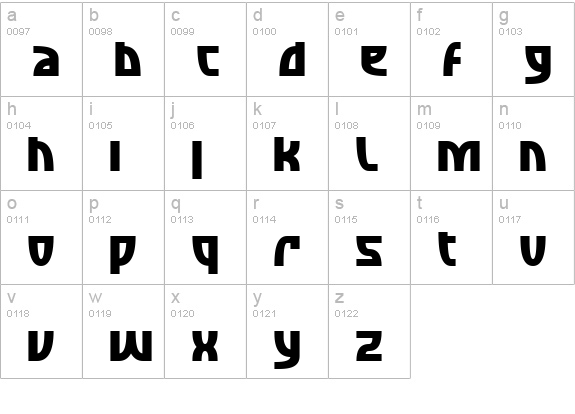
SF Retroesque Bold Font Details
SF Retroesque Bold is a strong, high-contrast variant in the SF typeface family \xE2\x80\x94 well suited to headlines, attention-grabbing titles, and strong calls-to-action.
SF Retroesque Bold is a stunning font that effortlessly combines the classic aesthetics of retro typography with a modern twist. This typeface exudes a sense of nostalgia and elegance, making it perfect for any design project that calls for a touch of vintage charm. With its bold and strong letterforms, SF Retroesque Bold commands attention and adds a sense of authority to any text it graces. Whether used for headlines, logos, posters, or branding materials, this font captivates the viewer's eye and leaves a lasting impression. What makes SF Retroesque Bold even more enticing is that it is freely available to download at FontsMarket.com. This means that designers, creatives, and enthusiasts alike can easily access and incorporate this font into their projects, without any financial barrier. Its availability for free ensures that it can be enjoyed by a wide range of individuals, regardless of their budget or resources. The versatility of SF Retroesque Bold knows no bounds. Its clean and legible design makes it suitable for both print and digital media. It effortlessly adapts to various sizes and contexts, maintaining its visual impact across different platforms. The attention to detail in SF Retroesque Bold is truly remarkable. Each character is meticulously crafted, paying homage to the elegant typography of the past while embracing the contemporary design trends. The result is a harmonious blend of old and new, creating a font that stands out from the crowd. Whether you're designing a vintage-inspired website, crafting a retro-themed advertisement, or simply looking to add a touch of nostalgia to your creative endeavors, SF Retroesque Bold is the perfect choice. Its timeless appeal and freely accessible nature make it an invaluable asset in any designer's toolkit. Download SF Retroesque Bold today from FontsMarket.com and embark on a typographic journey that seamlessly merges the past with the present. Unleash your creativity and let this font elevate your designs to new heights.